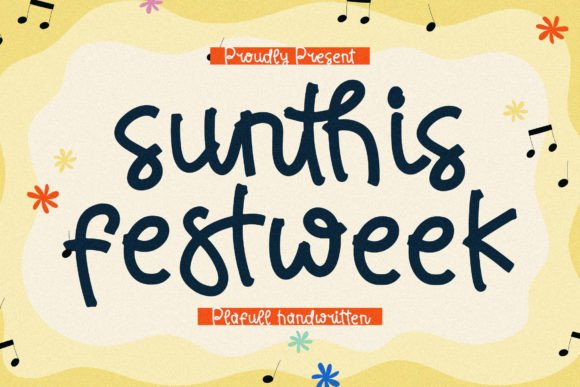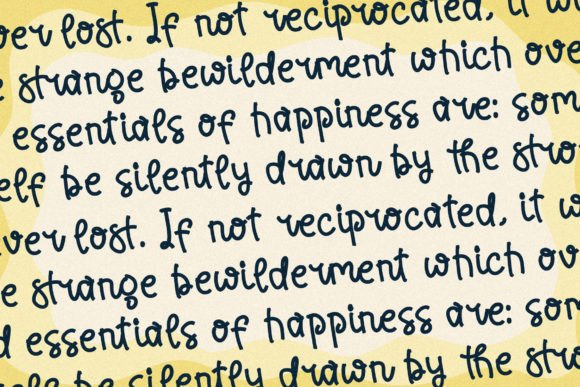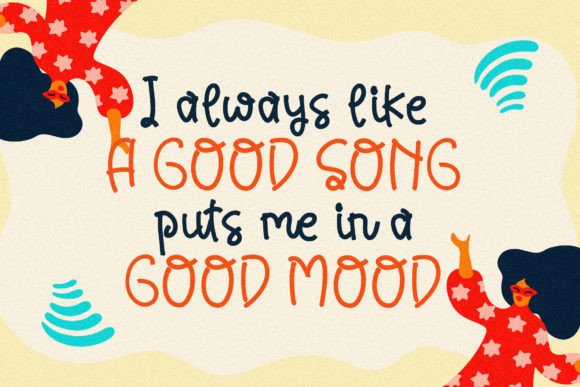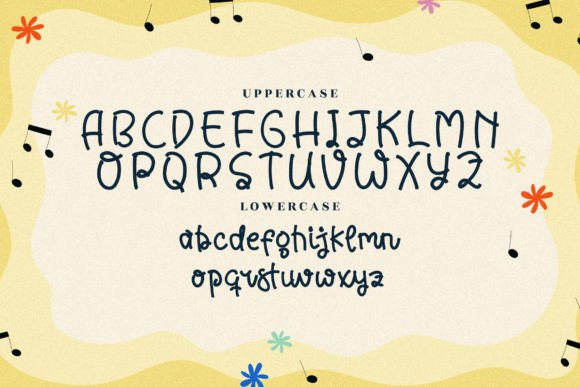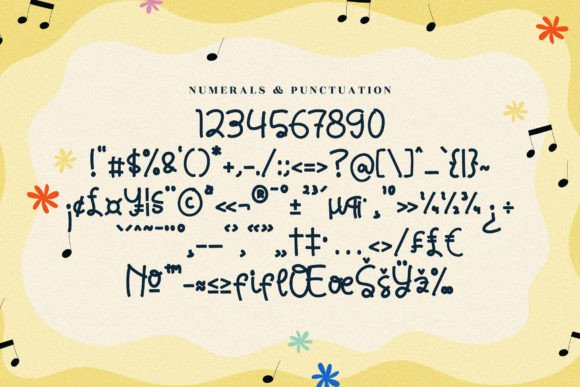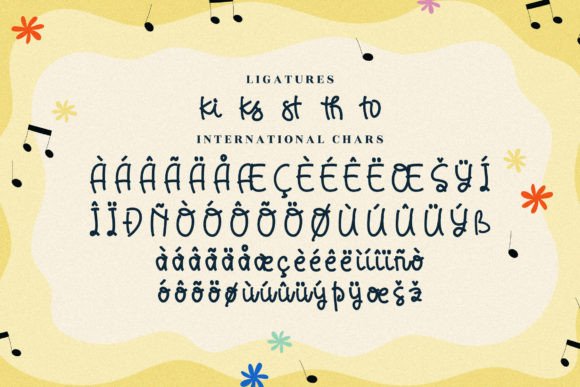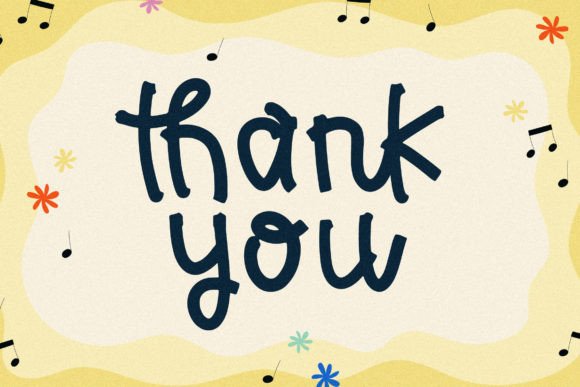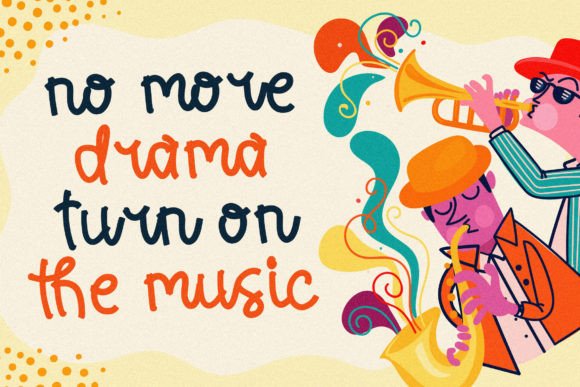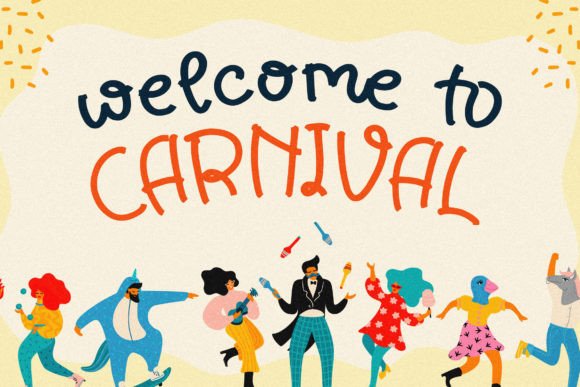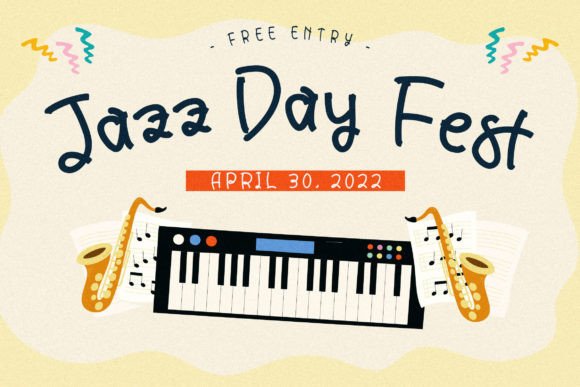
Sunthis Festweek Font
Sunthis Festweek Handwritten Font – Fun and Playful Typeface
The Sunthis Festweek Handwritten Font is a cheerful and quirky typeface designed to add fun and brightness to your creative projects. With its whimsical handwritten strokes, it captures attention while bringing a lighthearted and joyful tone. Whether you’re designing invitations, greeting cards, or digital graphics, this font makes your work shine with personality.
A Whimsical Handwritten Style
The Sunthis Festweek Handwritten Font combines quirky curves with smooth flow, creating a handwritten design that feels authentic yet stylish. Its playful energy makes it especially suitable for projects that aim to express happiness and creativity. Designers love its ability to make everyday designs feel unique and personal.
Perfect for Posters and Greeting Cards
The Sunthis Festweek Handwritten Font is a fantastic choice for posters, thank-you notes, and festive greeting cards. Its bold yet friendly strokes bring warmth to invitations and craft projects. It also works well for social media graphics and DIY designs, giving your content a personal and engaging look.
Versatility for Creative Projects
While fun and playful, the Sunthis Festweek Handwritten Font is versatile enough for many different applications. From product packaging to branding projects, it adds a personal handwritten charm that elevates the design. Its balance of quirkiness and clarity makes it a valuable typeface for both casual and professional work.
Why Designers Love Sunthis Festweek Font
Designers appreciate fonts that combine creativity with usability, and this one does exactly that. The Sunthis Festweek HandwrittenFont is energetic enough for crafts and posters but professional enough for branding. Its adaptability makes it a great addition to any font collection.